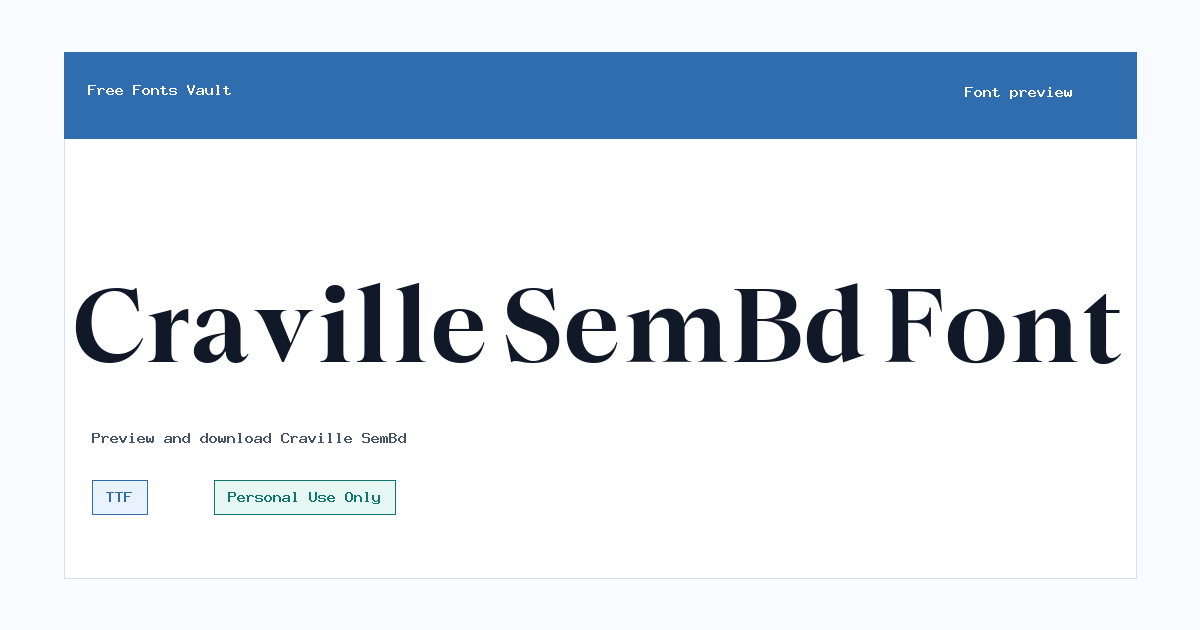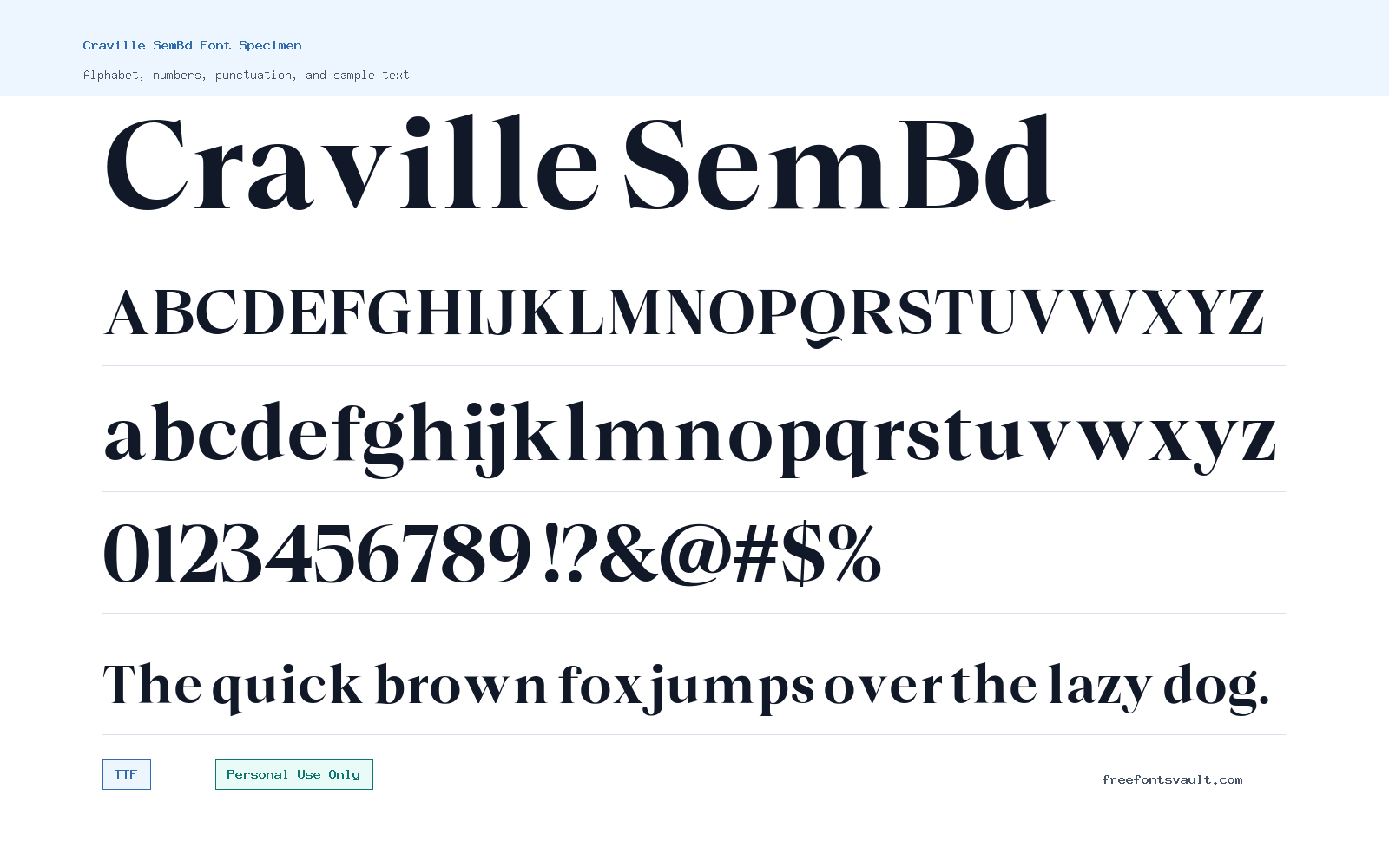
Craville SemBd
Craville SemBd font.
Craville SemBd is a semi-bold serif font style suited to designers who want a stronger, more structured look than a light or regular serif. It is best treated as a display or headline choice first: test it in the preview tool with names, titles, short phrases, poster lines, and logo-style text before using it in a full layout.
About Craville SemBd
Craville SemBd belongs to the Craville Serif Font Family and comes as a TTF font file. The “SemBd” name indicates a semi-bold style, and the listed weight is 700, so it should carry more visual emphasis than a standard regular cut. That makes it useful for short pieces of text where you want a serif voice with enough weight to stand out, such as title cards, cover concepts, brand-name mockups, packaging drafts, social graphics, quote posters, and editorial headings. Because only one style is listed, it is better to plan around it as a feature font rather than as a complete text system.
For best results, type your real wording into the preview instead of judging the font from a sample line. Check how uppercase letters, lowercase letters, numbers, punctuation, and spacing behave in your exact text. Semi-bold serif fonts can look strong in logos and posters, but they may become heavy in dense paragraphs, especially at small sizes. If you are building a web mockup, try Craville SemBd for hero headings, section titles, navigation highlights, or short callouts, then pair it with a simpler sans serif or a quieter serif for body copy. Keep the pairing restrained so the headline font stays clear and does not compete with another decorative face.
- Semi-bold serif style with a listed 700 weight, useful for stronger headings and display text.
- Single normal-style variant listed, so it is easiest to use as a headline, logo, or accent font.
- Logo drafts and wordmark experiments where a heavier serif look is needed.
- Poster titles, quote graphics, cover concepts, and social media headline designs.
- Website and app mockups that need a serif display heading rather than body text.
- Packaging concepts, labels, invitations, and editorial layouts used for personal projects.
- Typography testing, moodboards, and visual direction boards before choosing a licensed production font.
Use Craville SemBd where a short line needs weight and a serif character. Start with larger sizes for headings, posters, and logo mockups, then reduce the size only after checking readability. Watch letter spacing in all-caps text, because semi-bold serif shapes can feel tight when a wordmark is compressed. For web mockups, pair it with a clean sans serif for paragraphs and interface text. For print concepts, test the final words at the real size, especially if the design includes thin details, small captions, or textured backgrounds.
What kind of font is Craville SemBd?
Craville SemBd is listed as part of the Craville Serif Font Family. The style is normal, the file is a TTF, and the weight is listed as 700, which fits a semi-bold display use.
Is Craville SemBd good for body text?
It is better to test it as a headline or accent font first. A semi-bold serif can be effective in short text, but it may feel too heavy for long paragraphs or small interface copy.
What should I pair with Craville SemBd?
Pair it with a simple sans serif for body text, captions, and navigation. If you prefer a serif pairing, choose a quieter text serif with lighter weight so the semi-bold headline remains the main focus.